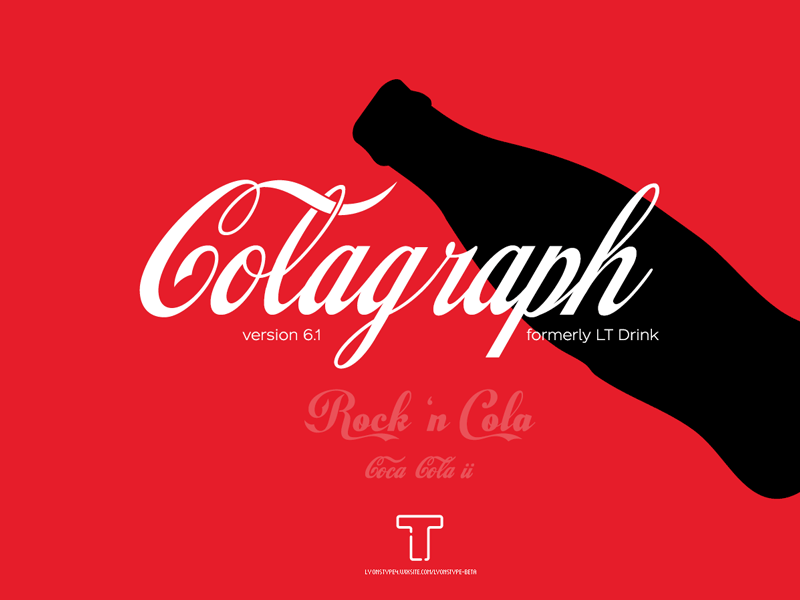
Colagraph, formerly LT Drink, is a typeface based on Coca-Cola wordmark. This typeface also tends be a revival of the partially seen Cola Script font (designed by Bob Alonso of BA Graphics in 1974), but with a variety of additions such as international language support, stylistic alternates (swashes), and Cyrillics. Stylistic alternates can also be accessed in Notepad. To access them, type (letter) ~ for upper swash, and (letter) _ for lower swash. This is a non-profit project and in no way is it affiliated with or endorsed by The Coca-Cola Company. Any questions? Please shoot an inquiry at this e-mail address: lyonstype@pm.me Download more fonts at: https://lyonstype4.wixsite.com/lyonstype-beta |